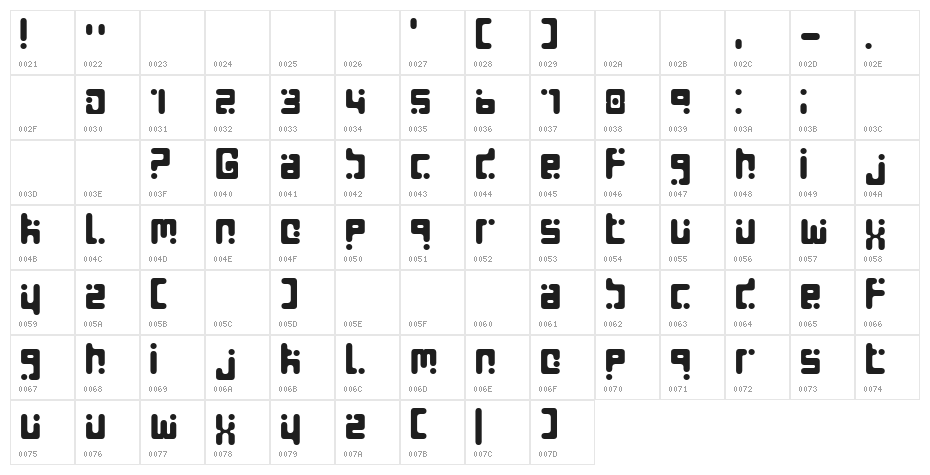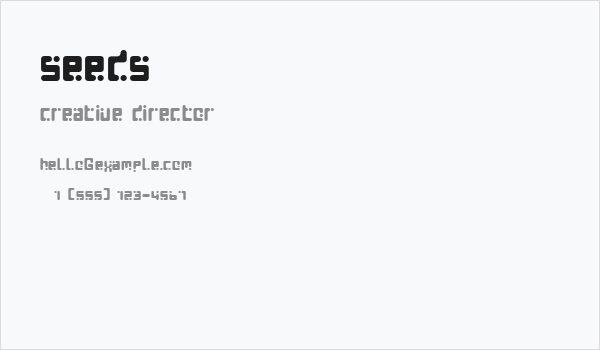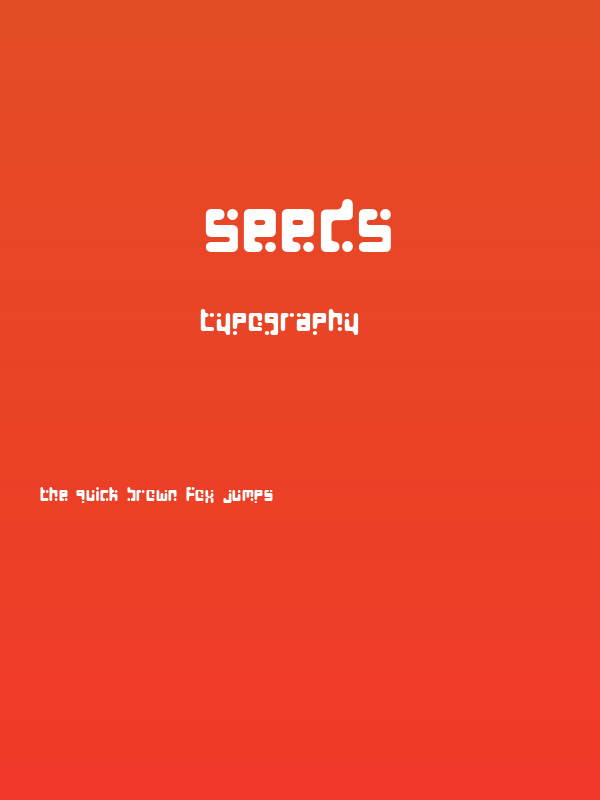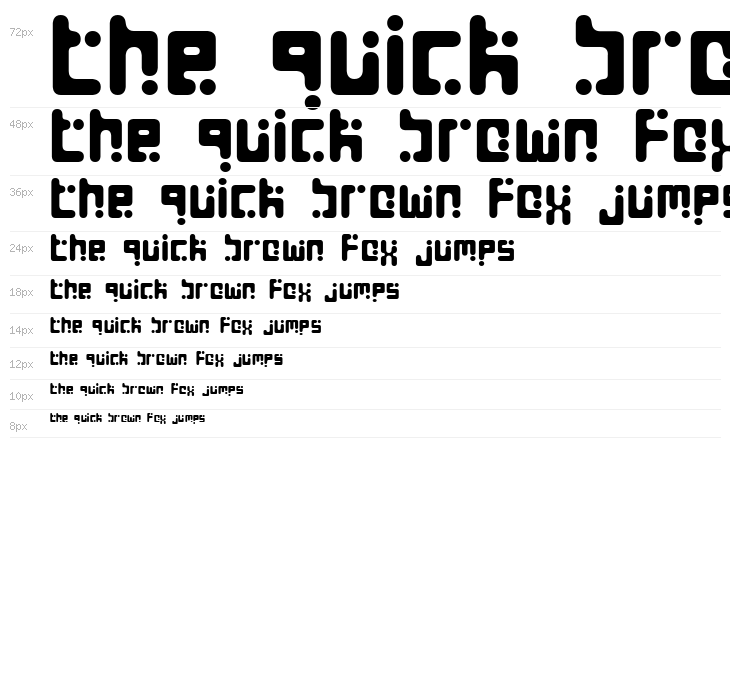
Seeds Font
Seeds Description
This font features a bold, rounded design with a futuristic and playful aesthetic. The characters are constructed with thick strokes and circular elements, giving them a unique, bubbly appearance. The use of dots and rounded edges creates a sense of movement and energy. The font maintains a consistent weight throughout, with each letterform exhibiting a uniform thickness. Its distinctive style makes it stand out, while still being legible. The font's geometric shapes and smooth curves contribute to its modern and dynamic look, making it suitable for creative and contemporary projects.
| Proposed Projects | Ideal for branding, posters, children's books, and tech-themed designs. |